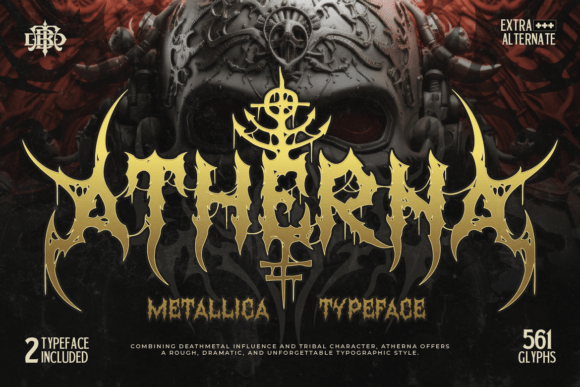
Unleashing the Beast: A Deep Dive into the Atherna Font
I still remember the design project that led me to discover the Atherna font. I was working on a logo for a death metal band, and I needed a typeface that could capture the raw energy and aggression of their music. After hours of searching, I stumbled upon Atherna, and it was love at first sight. The brutal, twisted, and unpredictable design of this font perfectly embodied the spirit of extreme music and underground culture.
Here’s what I love about Atherna:
- ✨ Raw Energy: Atherna’s letters feel like they’re carved with rage, making it perfect for designs that demand attention and attitude.
- ✅ Versatility: This font blends death metal aesthetics with tribal influences, creating a unique look that’s both savage and hypnotic.
- ✅ Distortion and Aggression: Atherna doesn’t try to be clean or perfect; instead, it embraces distortion, aggression, and noise.
A few quirks to keep in mind:
- ⚠️ Legibility: Atherna’s aggressive design can make it challenging to read in smaller sizes or at a distance.
- 🤔 Limited Use Cases: This font might not be the best fit for projects that require a more elegant or refined look.
Atherna’s design story begins in the dark corners of the underground music scene. The creator, fueled by a passion for extreme music and a desire to challenge traditional typography, crafted Atherna as a rebellion against clean and perfect fonts. By embracing distortion and aggression, Atherna was born – a font that’s unapologetically bold and loud.
| What type of projects is Atherna best suited for? | Atherna is perfect for death metal/black metal band logos, album covers, merchandise, music posters, event flyers, horror and gothic visual projects, and streetwear/edgy branding. |
| Does Atherna support multilingual text? | Yes, Atherna includes a multilingual character set, making it suitable for designs that require text in multiple languages. |